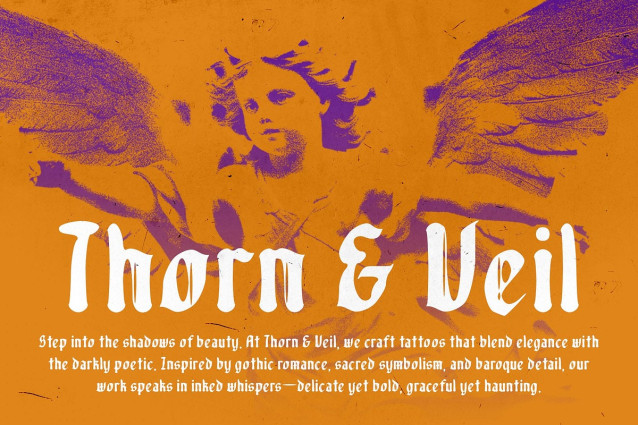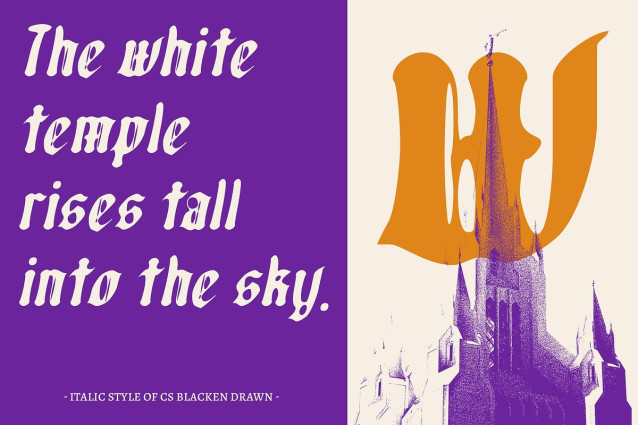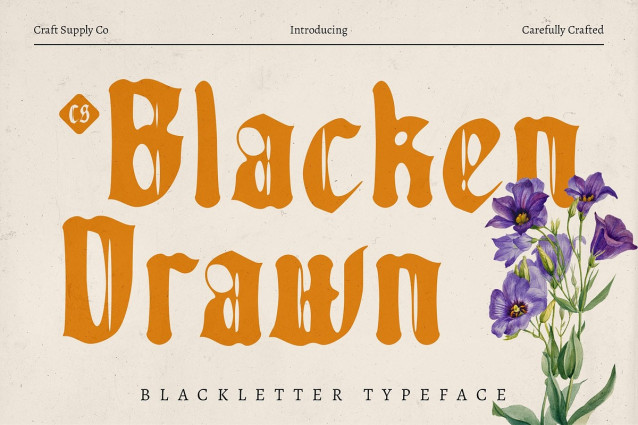
CS Blacken Drawn Font
CS Blacken Drawn Font is a display font that reimagines the blackletter tradition with sharp, bold letterforms and a modern edge. Its structure maintains the strong, historical presence of classic Gothic fonts while introducing updated proportions and clean cuts for a fresh and current look.
Drawn Texture for Artistic Depth The handcrafted drawn effect adds raw, organic character to each letterform, enhancing the font’s dark and mysterious aura. This textured finish delivers an expressive, rebellious vibe that stands out in creative, edgy, or alternative designs.
Perfect for Dramatic and Edgy Themes Ideal for metal music artwork, gothic branding, and bold editorial titles, this artistic font brings intensity and drama to any project. Its stylized energy makes it a go-to for designers seeking to convey boldness with flair.
Versatile for Artistic Subcultures Whether you’re working on a streetwear label, album cover, or experimental poster, this font adapts to various expressive contexts while maintaining its powerful identity. It’s a perfect blend of heritage and handcrafted modernity. CS Blacken Drawn’s strong visual identity makes it a versatile choice for designers who want to break away from the ordinary. From streetwear and underground publications to alternative events and conceptual artwork, it brings a sense of defiance, history, and handcrafted artistry to any design it graces.